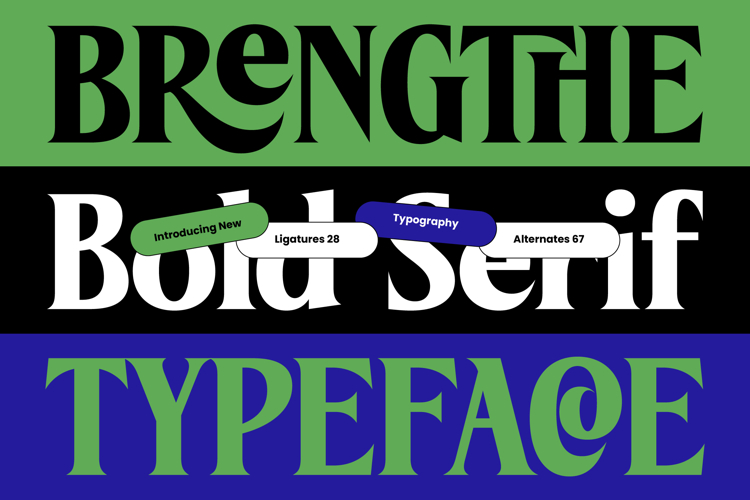
Brengthe - Modern Editorial Serif
Elevate your creative vision with Brengthe - Modern Editorial Serif, a typeface that embodies the pinnacle of contemporary sophistication and high-contrast elegance. This bold serif strikes a perfect balance between classical proportions and modern flair, making it an essential tool for designers seeking a lasting impression. Its powerful letterforms command attention, ensuring that every headline exudes prestige and authority.
This typeface is engineered for luxury branding, high-end editorial design, and premium packaging. Whether you are crafting a fashion magazine layout or a minimalist logo, Brengthe - Modern Editorial Serif provides the distinctive aesthetic needed to stand out. It is also perfect for web headers and promotional advertising where a bold typographic statement is required to capture the audience's gaze.
Engineered for a globalized design landscape, this font offers unmatched technical versatility. With its extensive multilingual support, Brengthe - Modern Editorial Serif adapts seamlessly across global markets, making it incredibly versatile for international projects. The inclusion of unique ligatures and stylistic alternates allows for unlimited customization, enabling creators to tailor designs to specific requirements while maintaining absolute legibility.